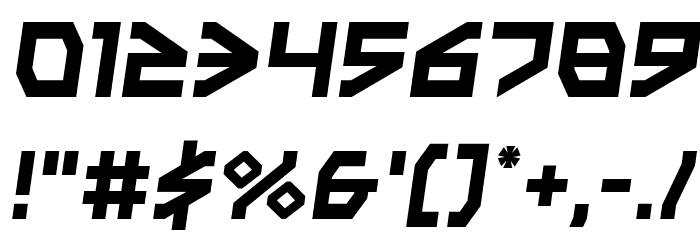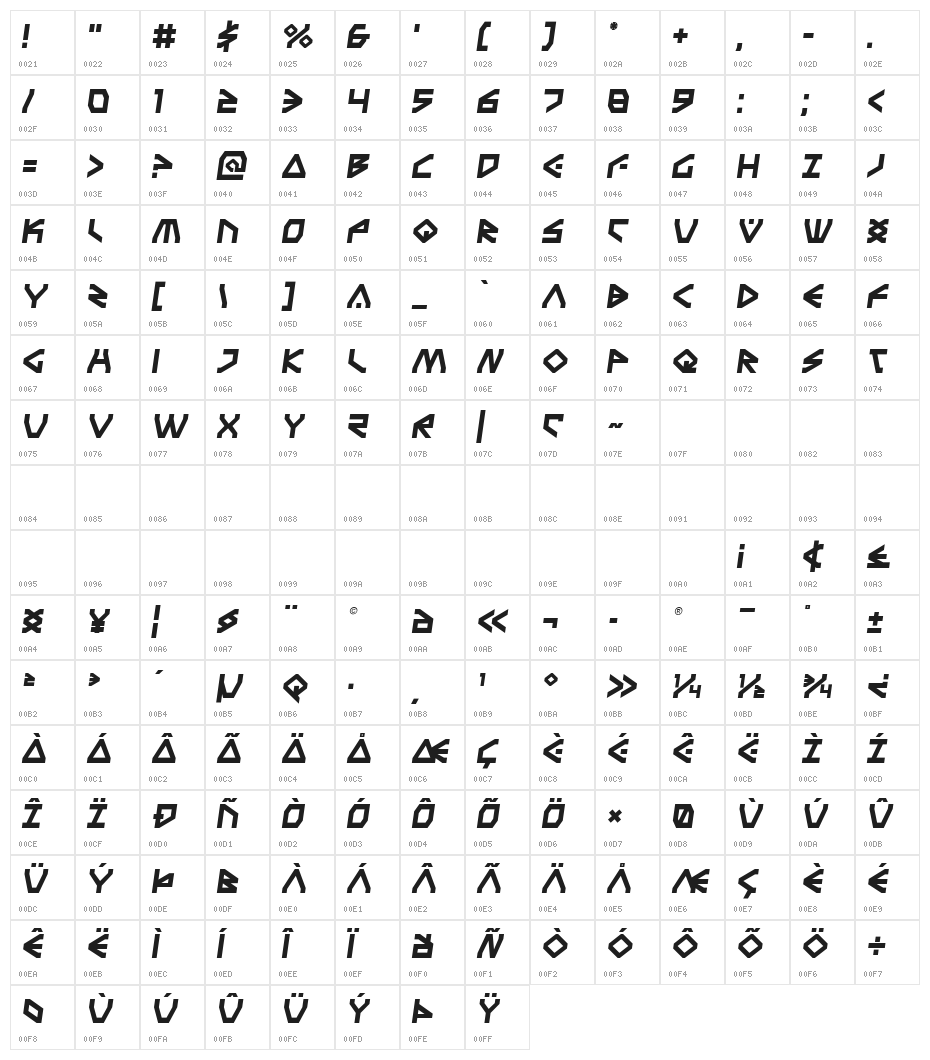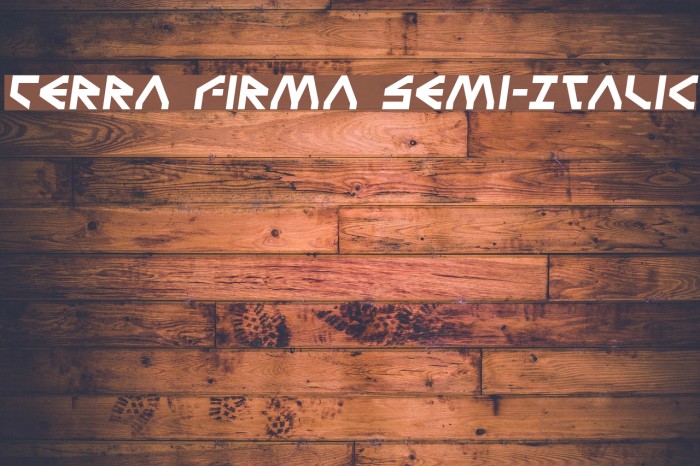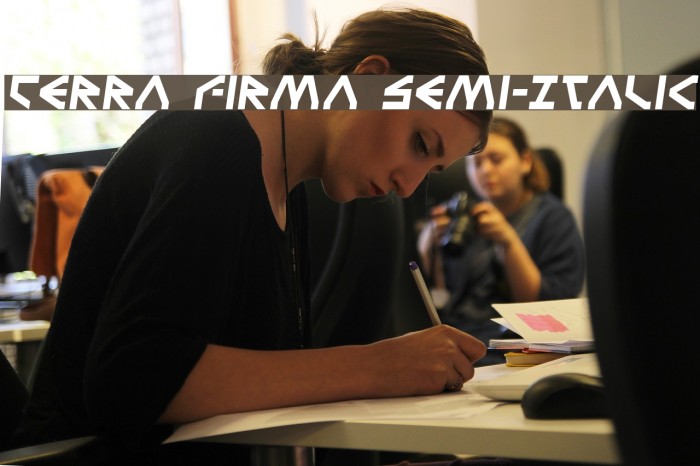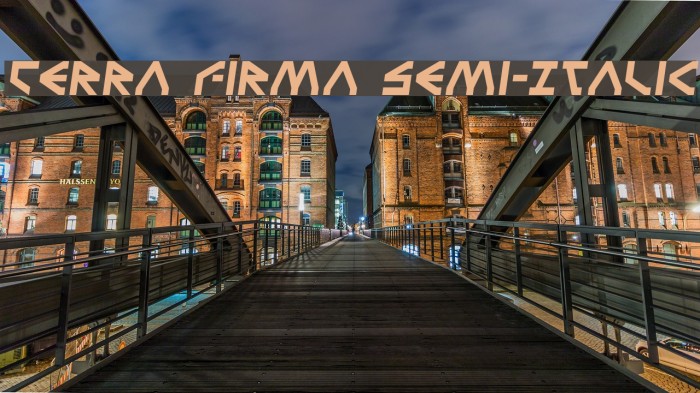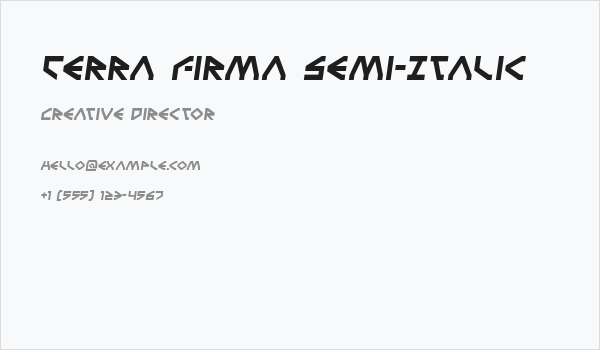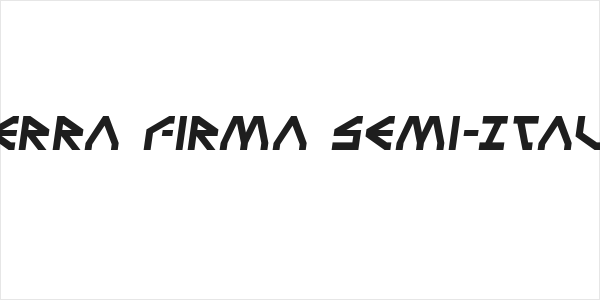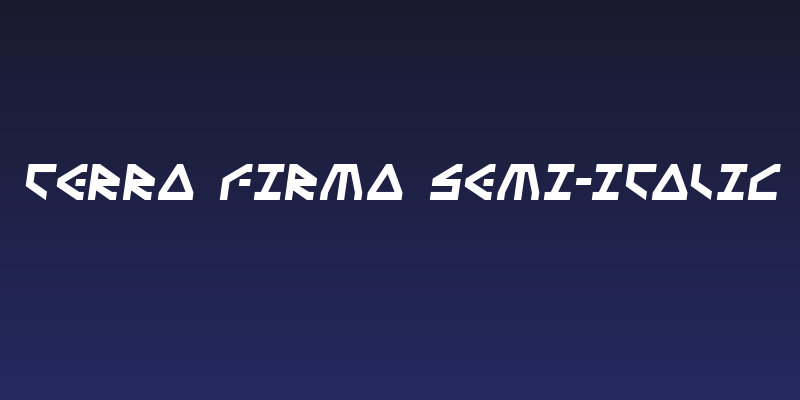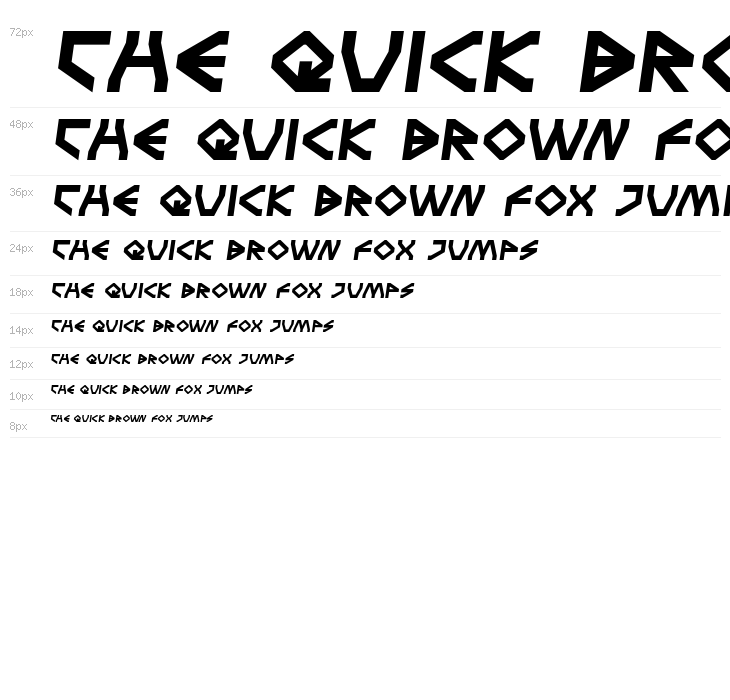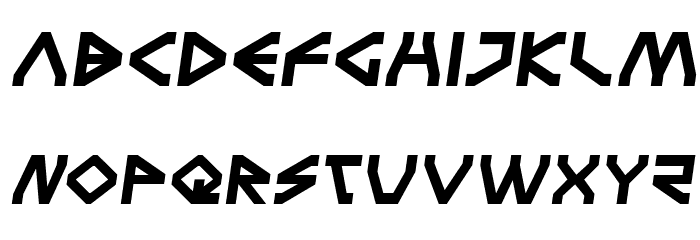
Terra Firma Semi-Italic Font
Terra Firma Semi-Italic Description
This font features a bold, angular design with a futuristic and geometric aesthetic. The characters are sharply cut with a distinct slant, giving them a dynamic and energetic appearance. The uppercase and lowercase letters maintain a consistent style, emphasizing sharp edges and diagonal lines. Numbers and special characters follow the same angular theme, ensuring uniformity across all glyphs. The font's unique style makes it stand out, ideal for projects that require a modern and edgy look.
| Proposed Projects | Ideal for sci-fi themed posters, video game titles, technology branding, and modern graphic design projects. |